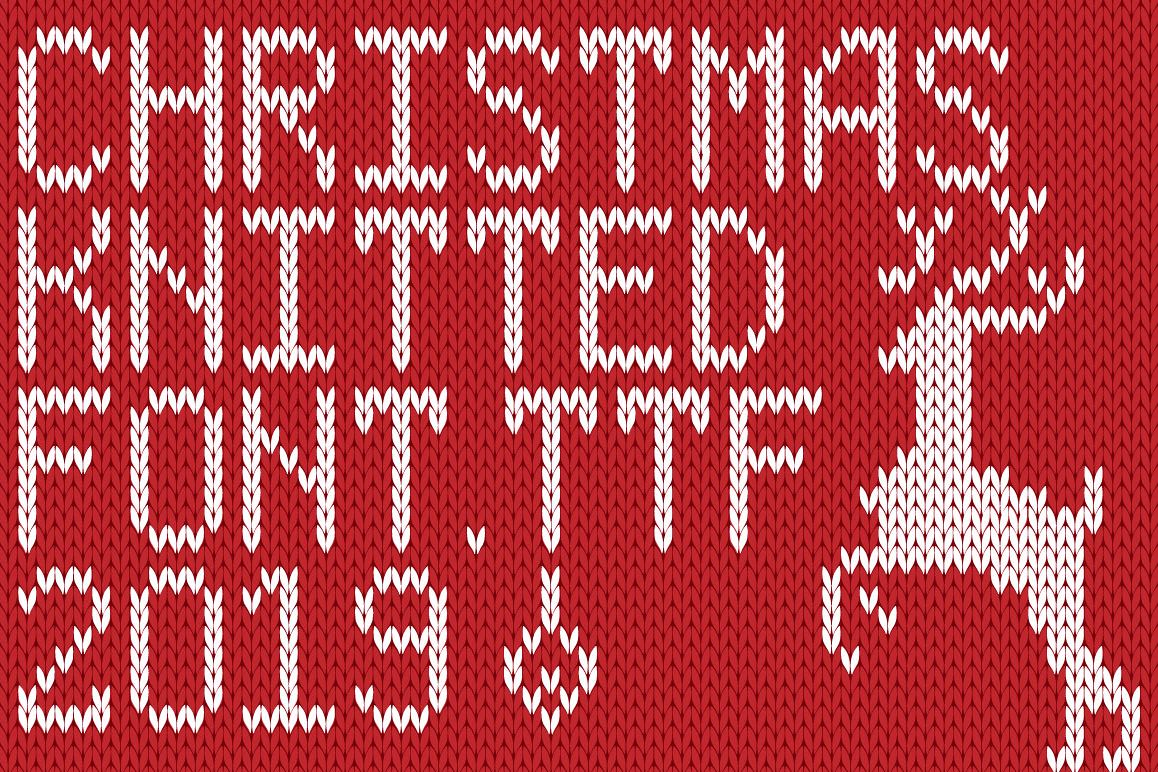
Christmas Knitted Font Ol Version 2.0
Excellent Christmas Knitted Font patterns and inscriptions in TTF, AI, PSD format. The set of Christmas Knitted font OL Version 2.0 includes a font in TTF format. As well as vector format AI All letters, punctuation signs and christmas design elements. In Christmas Knitted font OL Version 2.0 enters the knitted background perfectly suitable for the font.
You can use Christmas Knitted Font Ol Version 2.0 in the design of invitation or flyers to your party dedicated: Merry Christmas, Happy New Year or Ugly Sweater party.
You can also use Christmas Knitted Font Ol Version 2.0 for advertising and marketing.
For example, in Christmas Discount, Christmas Sale, Winter Sale.
Use the Christmas Knitted Font in design on page on social networks Instagram or Facebook and your post will attract attention.
• The font fits perfectly to the background!